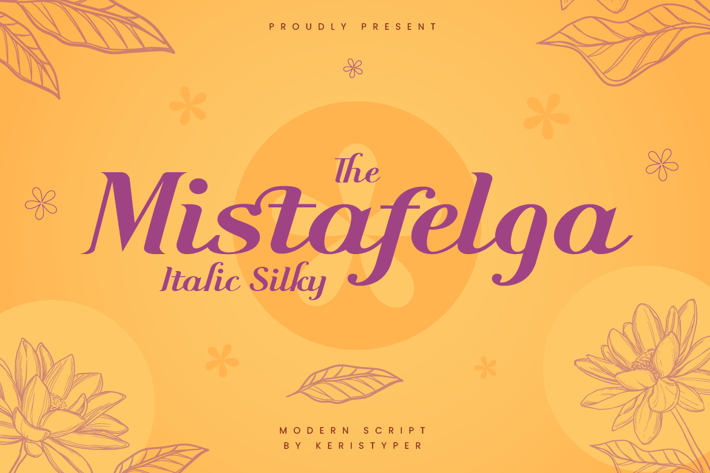
Mistafelga Font
Mistafelga is an elegant Silky italic font designed for editorial use and inspired by calligraphy in the middle century. This font is good for logo design, Social media, Movie Titles, Books Titles, short text even long text letters, and good for your secondary text font with sans or serif.
Standard Uppercase & Lowercase
Multilingual : ä ö ü Ä Ö Ü ß ¿ ¡
Alternate & Ligature